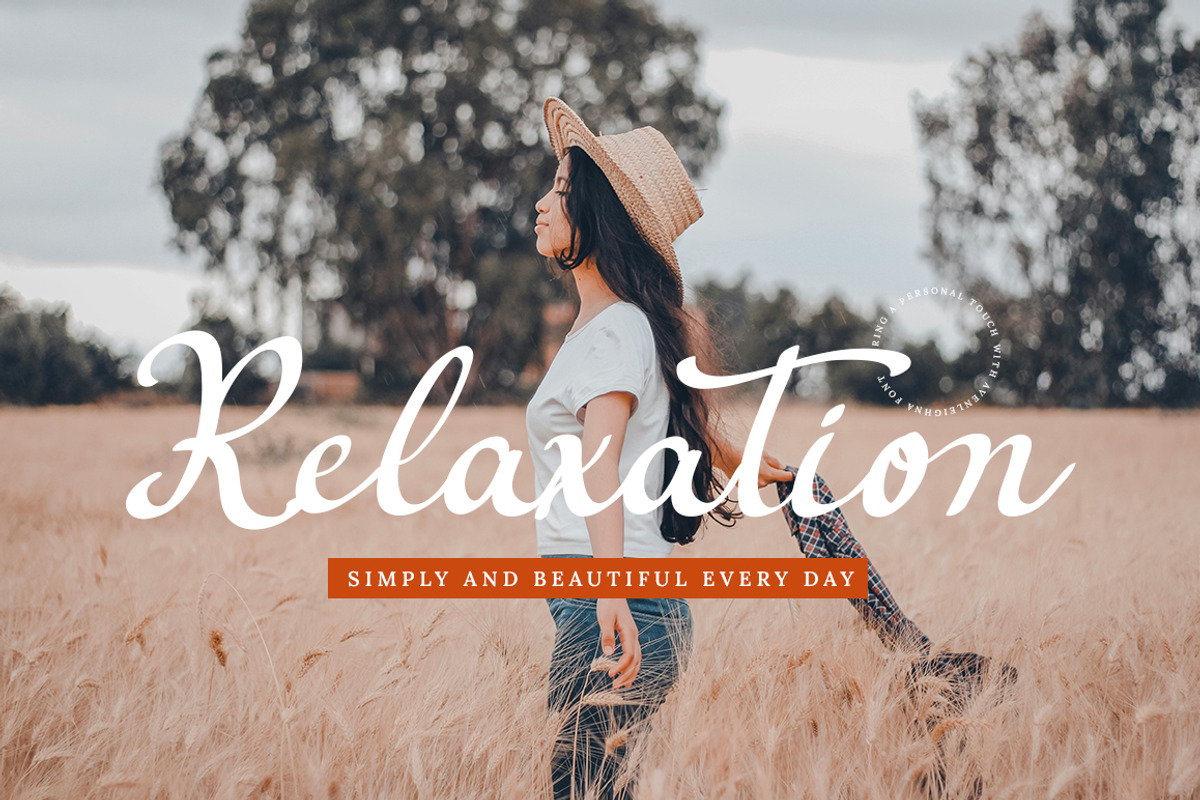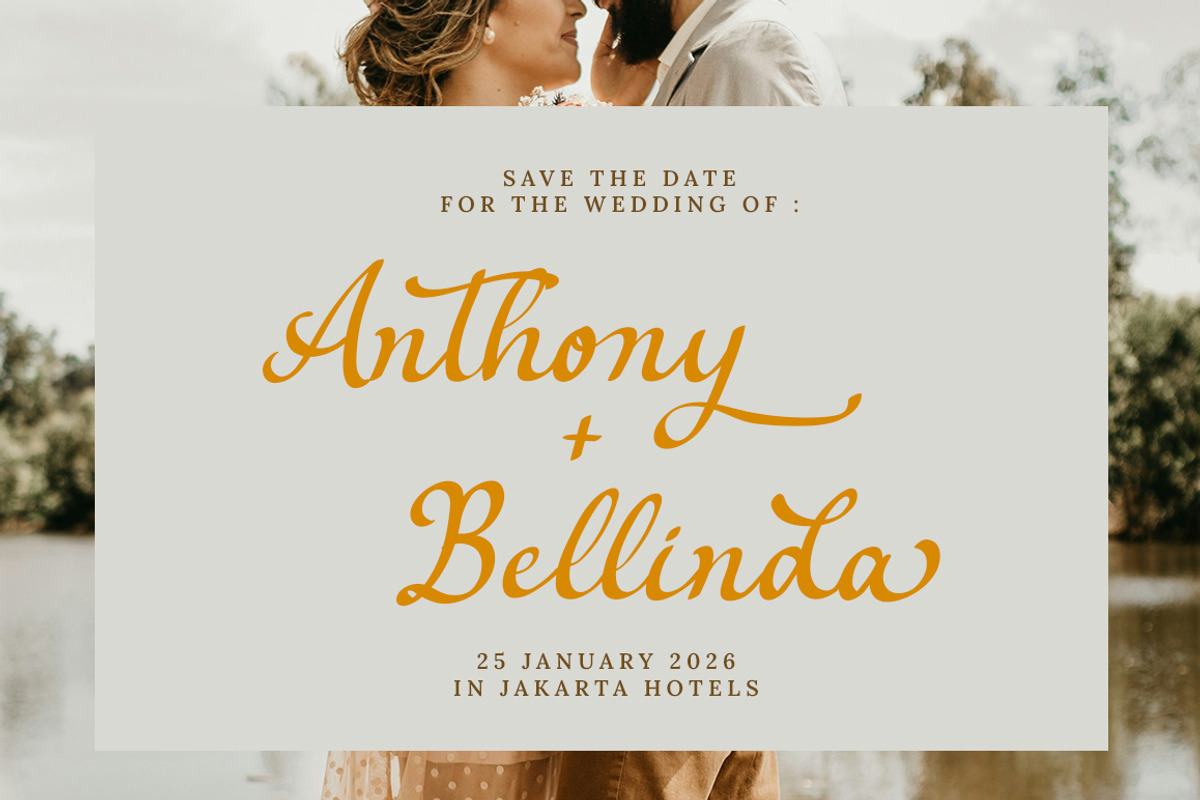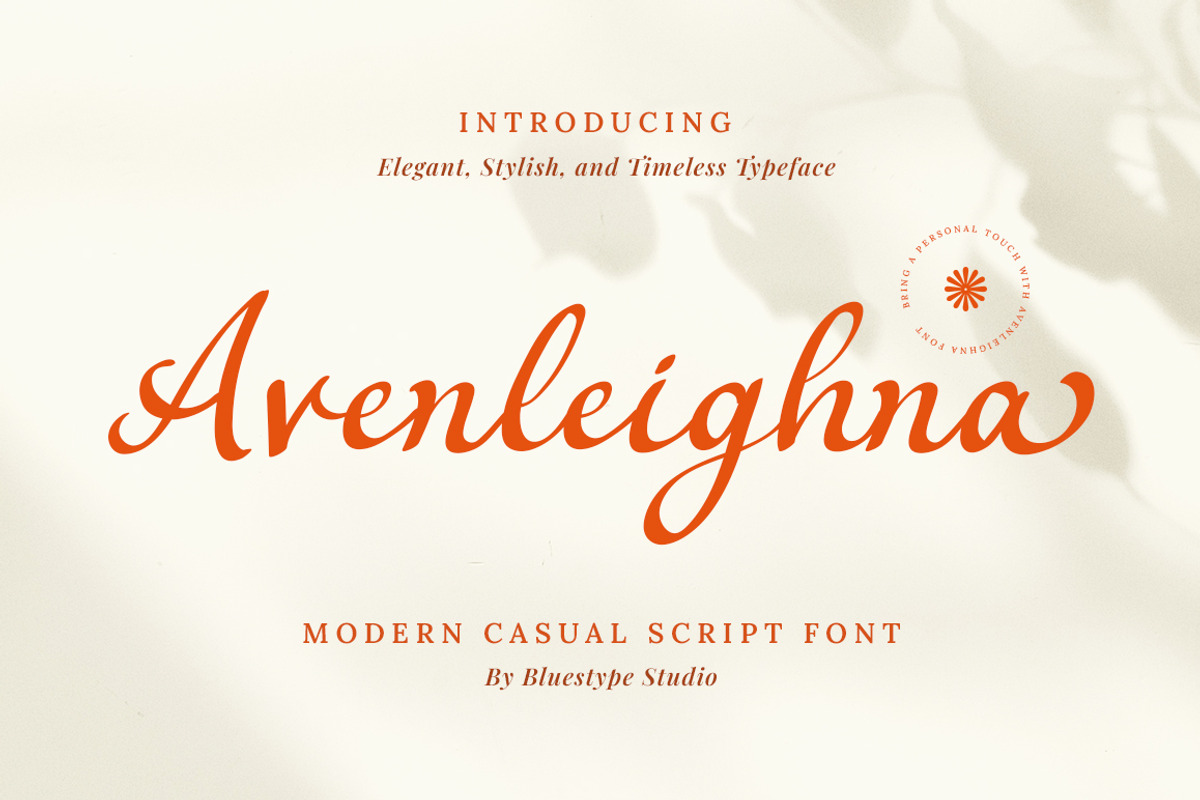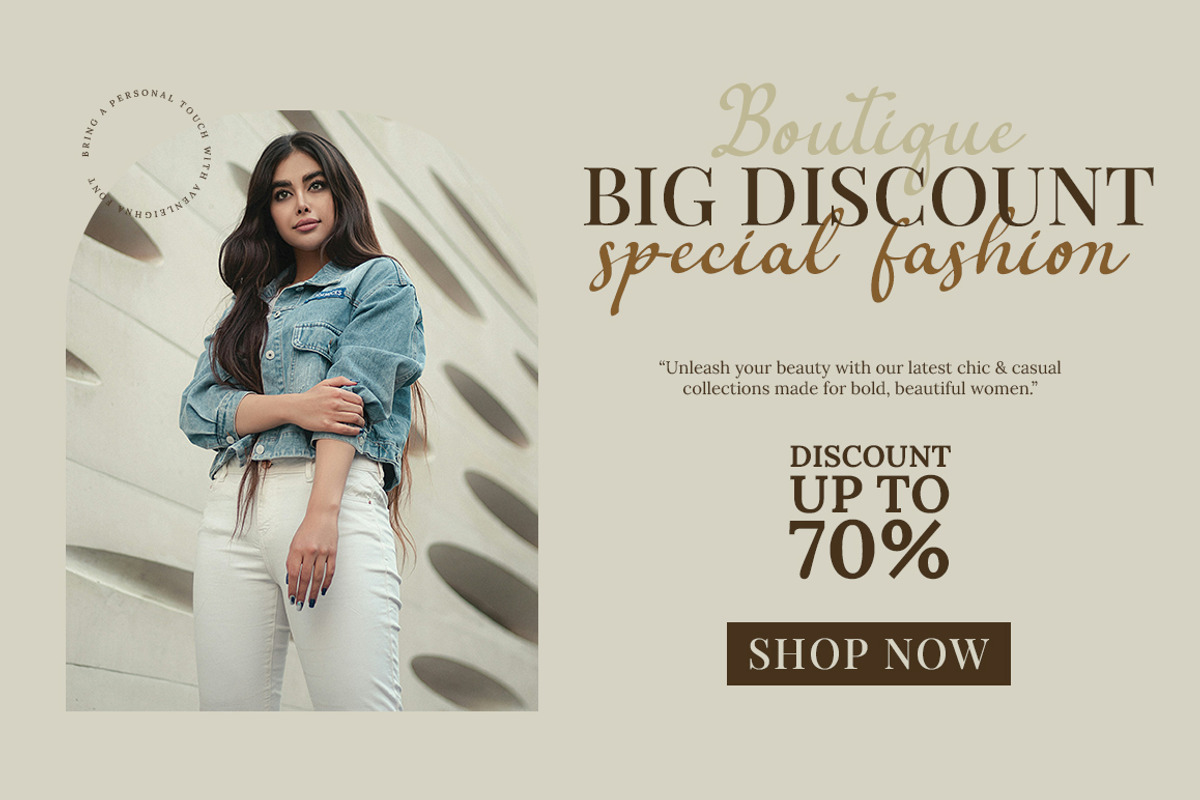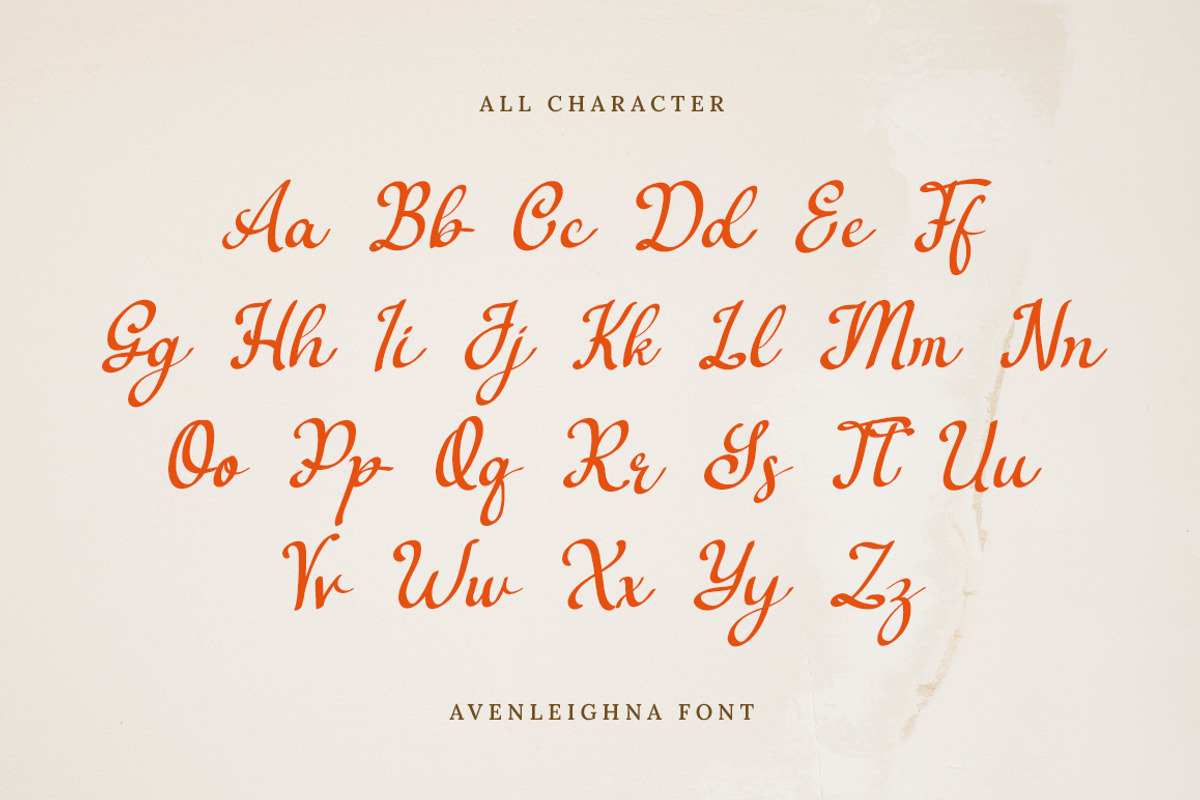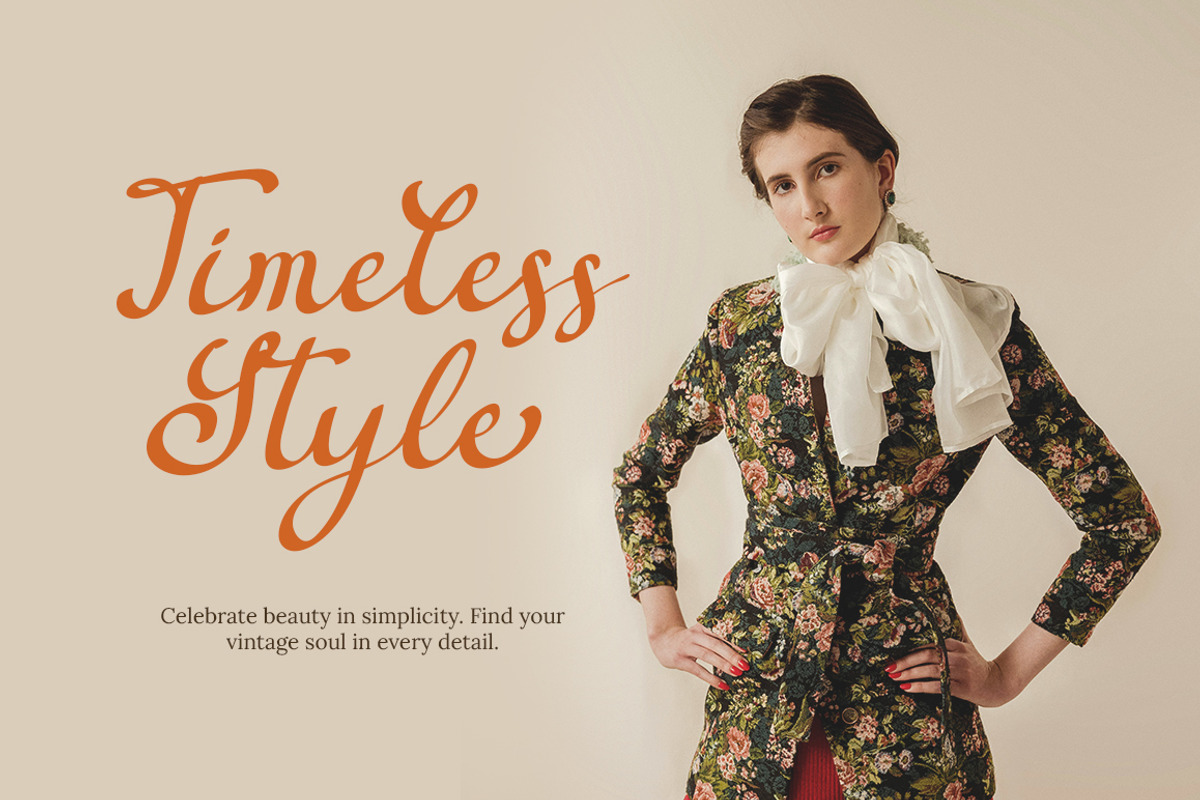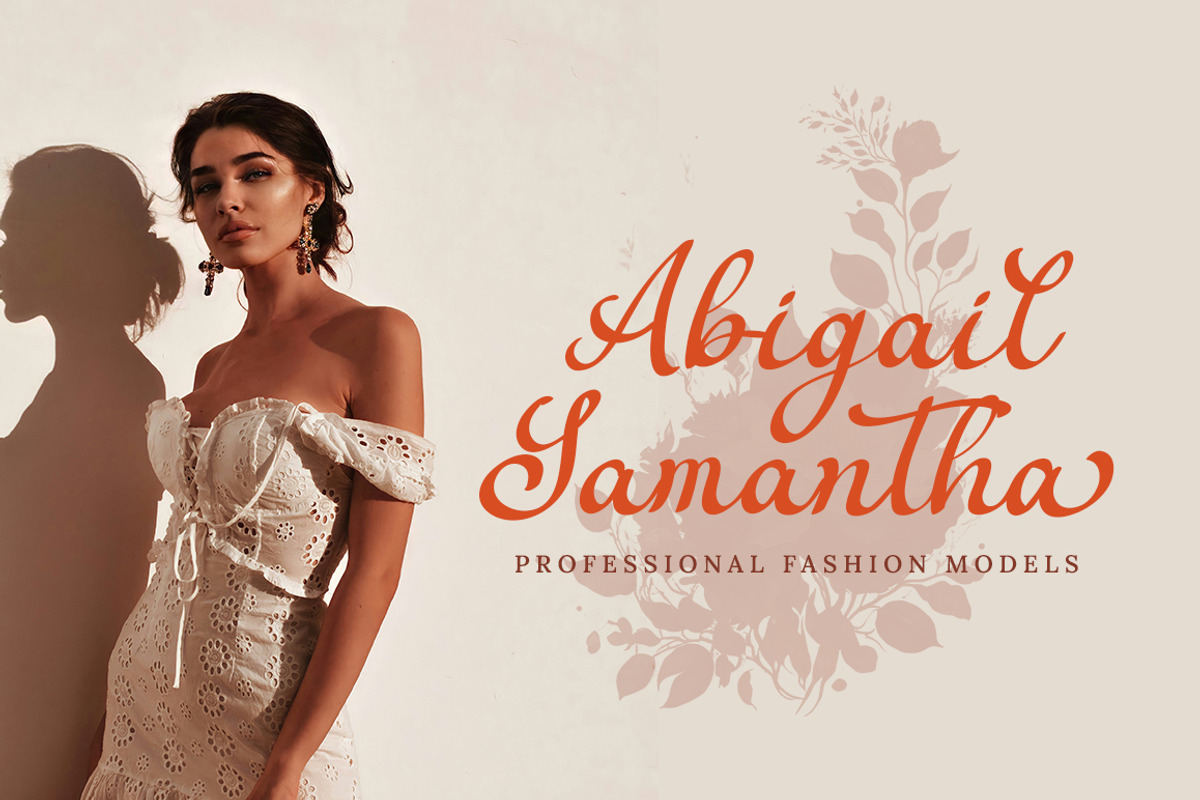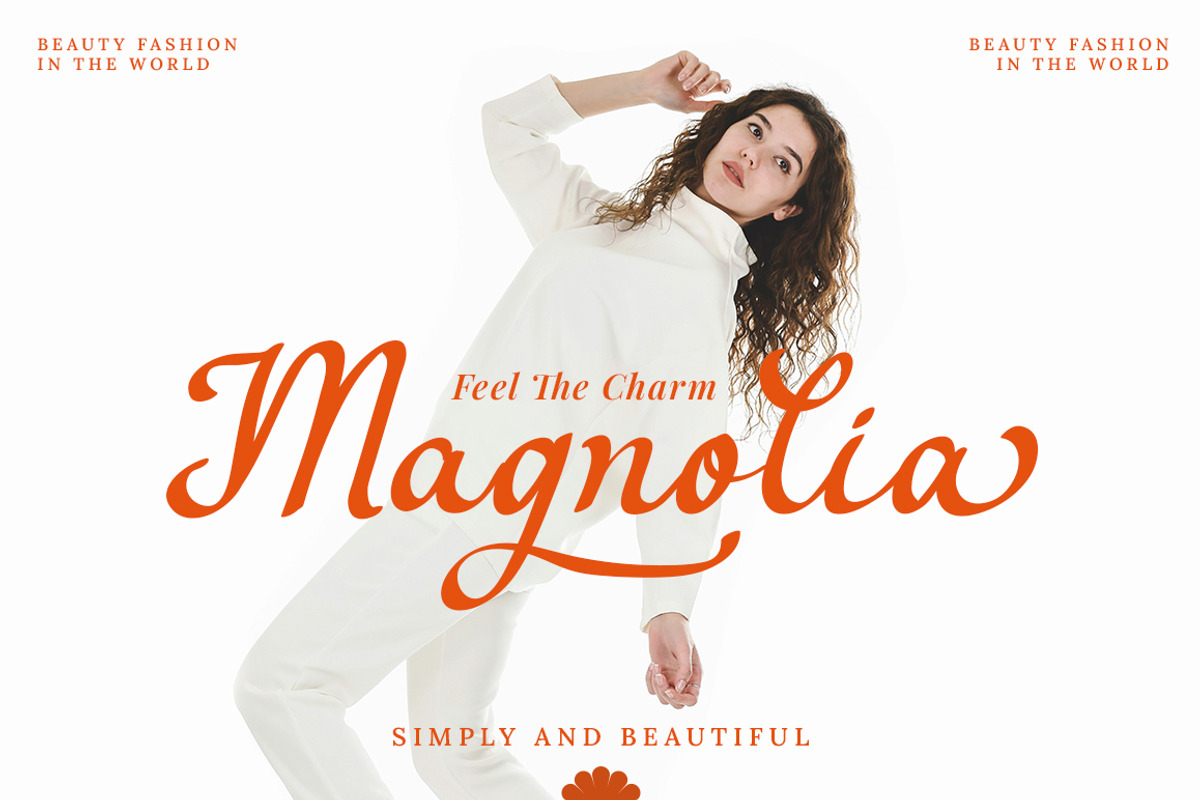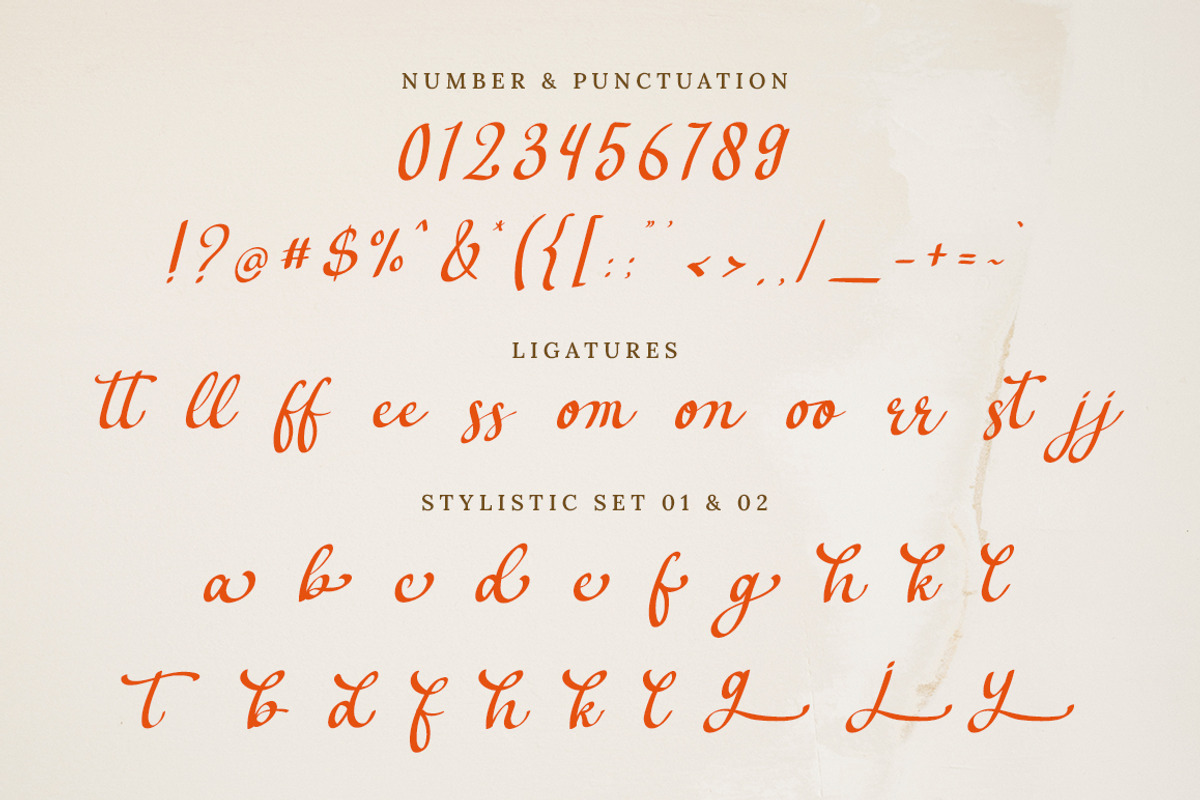
Avenleighna - Modern Casual Script
Avenleighna is a beautifully crafted script font that blends effortless casual strokes with a hint of vintage allure and modern simplicity. Designed to be versatile, Avenleighna moves gracefully between contemporary designs and nostalgic classics, making it perfect for logos, branding, invitations, social media, and editorial layouts.
Whether you're capturing the warmth of handwritten notes or the chic vibe of modern branding, Avenleighna adds personality, elegance, and authenticity to every project.
- Stylistic Set